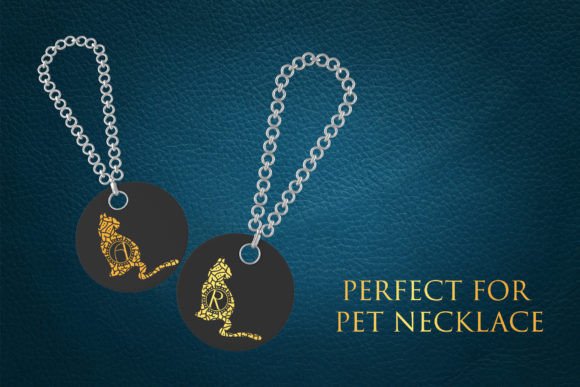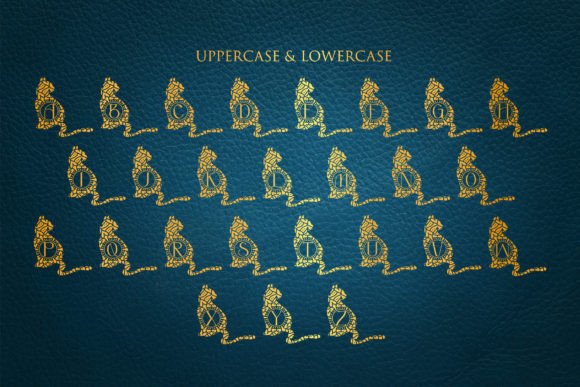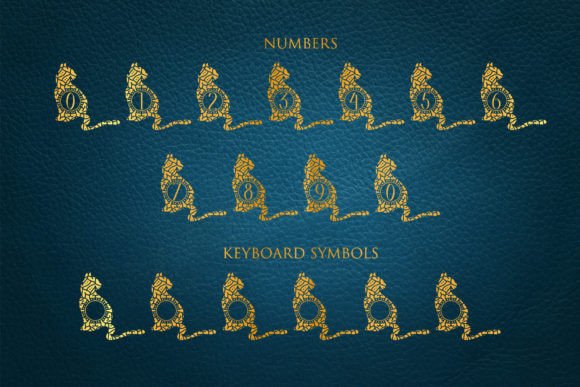
The Purrfect Font for Cat Lovers
Have you ever been in the middle of a creative project, staring blankly at a blank page, and suddenly a furry feline friend jumps onto your lap, distracting you with their adorable antics? This is exactly what happened to many designers who stumbled upon the Funny Cat Mandala Monogram Font – a font that’s as playful as it is beautiful.
This whimsical typeface is the ultimate tribute to cat lovers everywhere. With its intricate mandala designs and adorable cat silhouettes, the Funny Cat Mandala Monogram Font is the perfect addition to any creative project dedicated to our feline friends. Whether you’re designing cat-themed merchandise, creating a cat lover’s journal, or simply want to add a touch of whimsy to your typography, this font is sure to bring a smile to your face.
Funny Cat Mandala Monogram Font Key Features
- Font Style: A unique combination of mandala patterns and cat illustrations, creating a playful and whimsical design.
- Unique Characteristics: Each letter of the alphabet is designed with intricate mandala patterns and adorable cat illustrations, making it a one-of-a-kind font.
- Monogram Support: The font includes a range of monogram designs, allowing users to create custom monograms for various occasions.
Review: Funny Cat Mandala Monogram Font
The Funny Cat Mandala Monogram Font is a quirky, whimsical font that’s sure to bring a smile to anyone’s face. It’s perfect for designers who want to add a playful touch to their projects. ✨ I love how the cat faces are incorporated into the letters, it’s a clever idea that adds a lot of character to the font.
The font is also highly customizable, allowing you to change the color, size, and spacing of the letters. This makes it easy to use in a variety of different projects, from logos to social media graphics. ✨ The font is also quite versatile, and can be used in a range of different styles, from modern to vintage.
- ⚠️ The font may not be suitable for all types of projects, particularly those that require a more serious or professional tone.
- ⚠️ The font can be a bit overwhelming if used in large quantities, so be careful not to overdo it.
Overall, I think the Funny Cat Mandala Monogram Font is a fun and creative font that’s perfect for designers who want to add a little personality to their projects. While it may not be suitable for all types of projects, it’s definitely a great addition to any designer’s toolkit.
The Funny Cat Mandala Monogram Font is perfect for:
- Cat-themed designs and merchandise.
- Whimsical and playful branding.
- Personalized gifts and invitations.
Remember to use the font in moderation to avoid overwhelming your design.